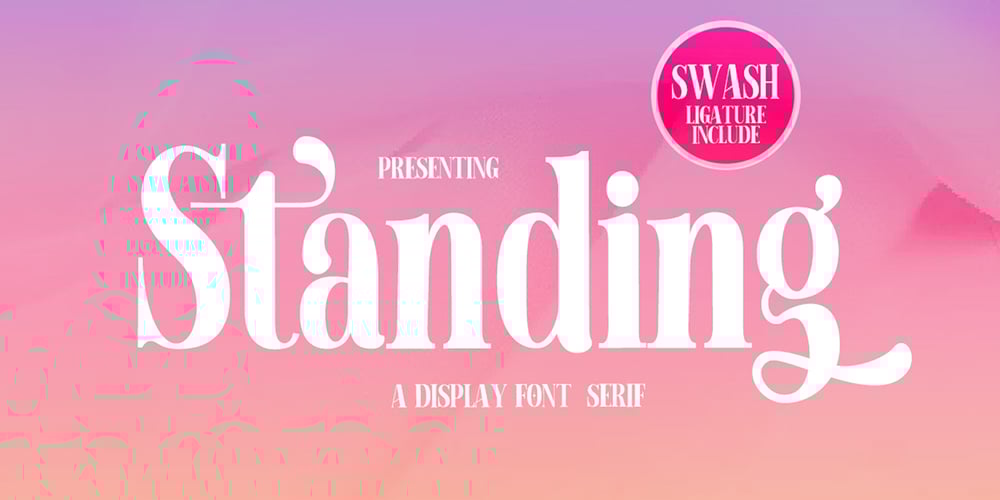
Standing Display Font Family was designed by Afri Giani and published by Gian Studio. Standing Display contains 1 styles and family package options. Best collection of display fonts, don’t miss it:Standing font is vintage elegant, these typefaces are truly made for one another. They work very well to give you the perfect design label you have designed. It’s perfect for Logo, Advertising, Apparel Design, Label, Signage, Etc.Enjoy!